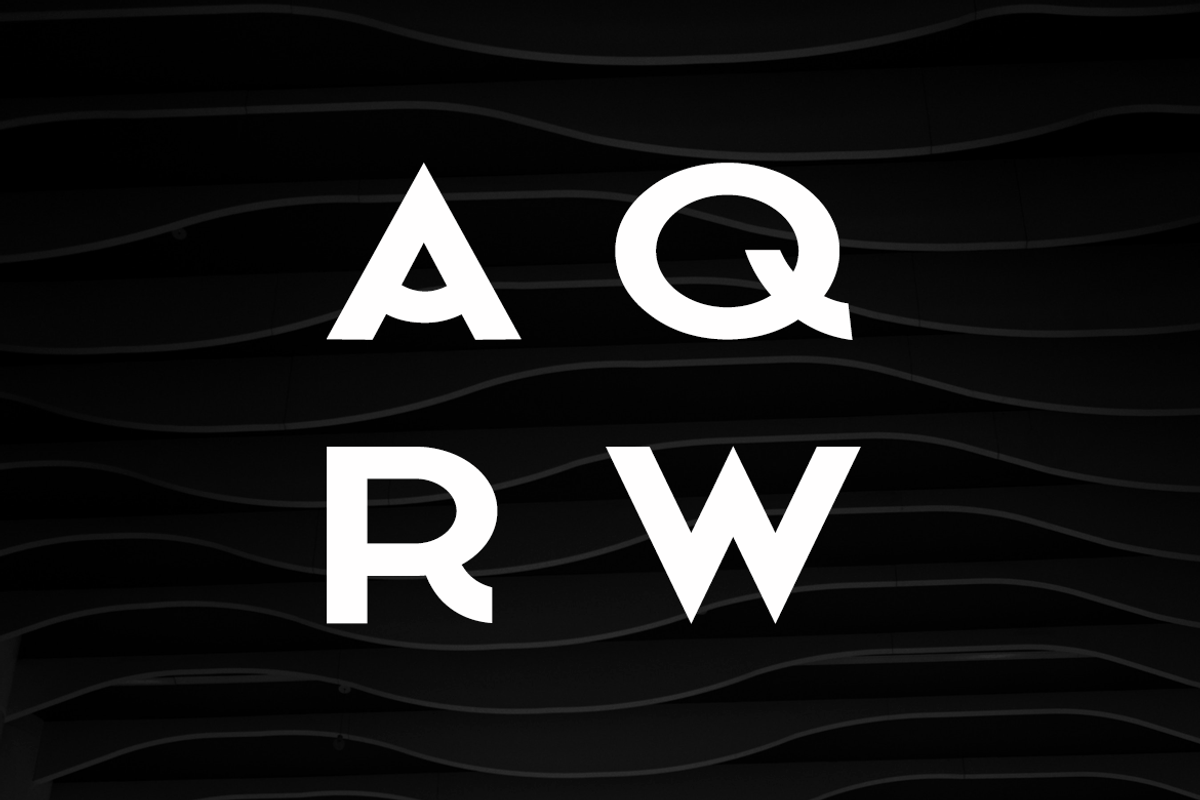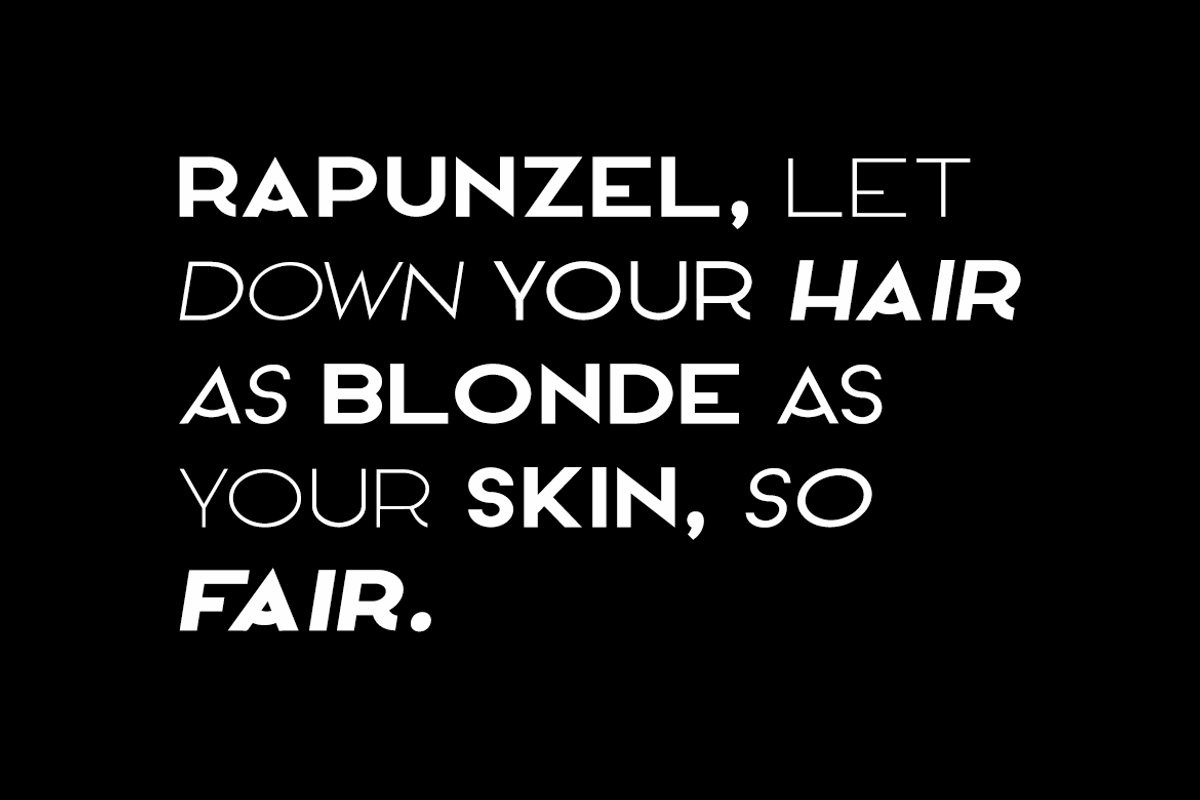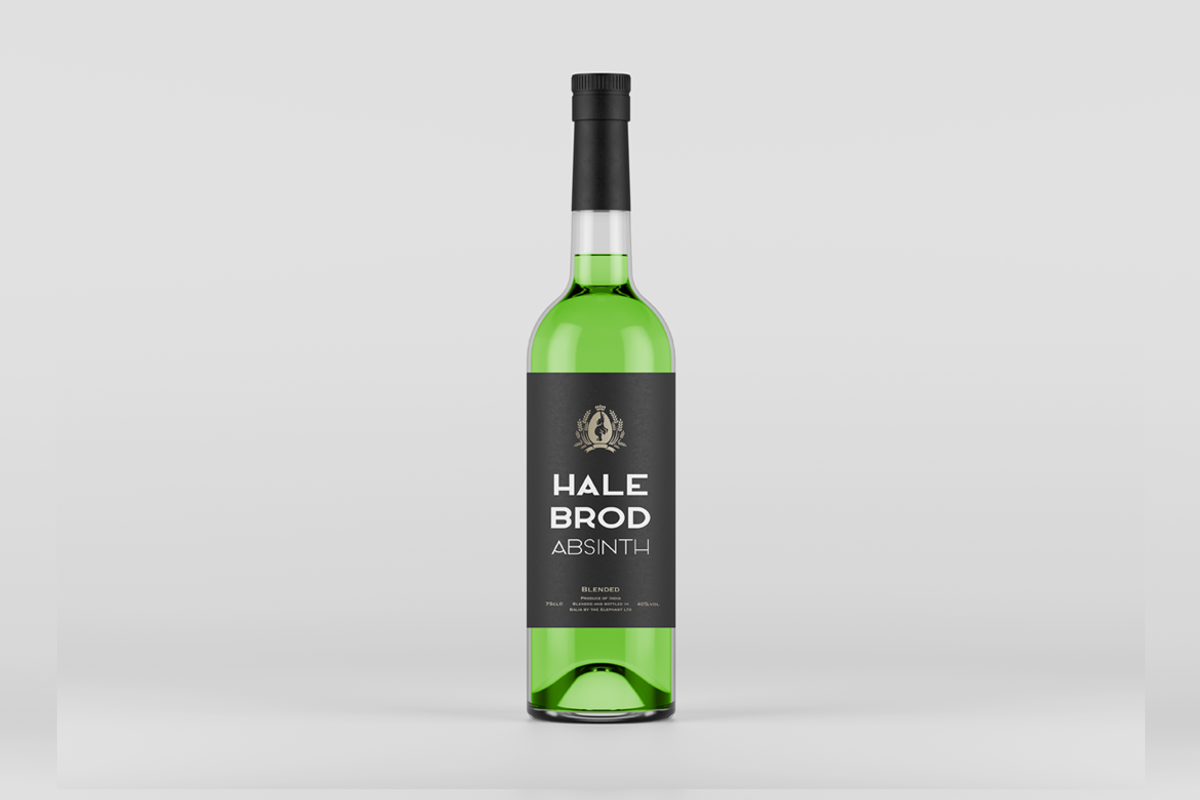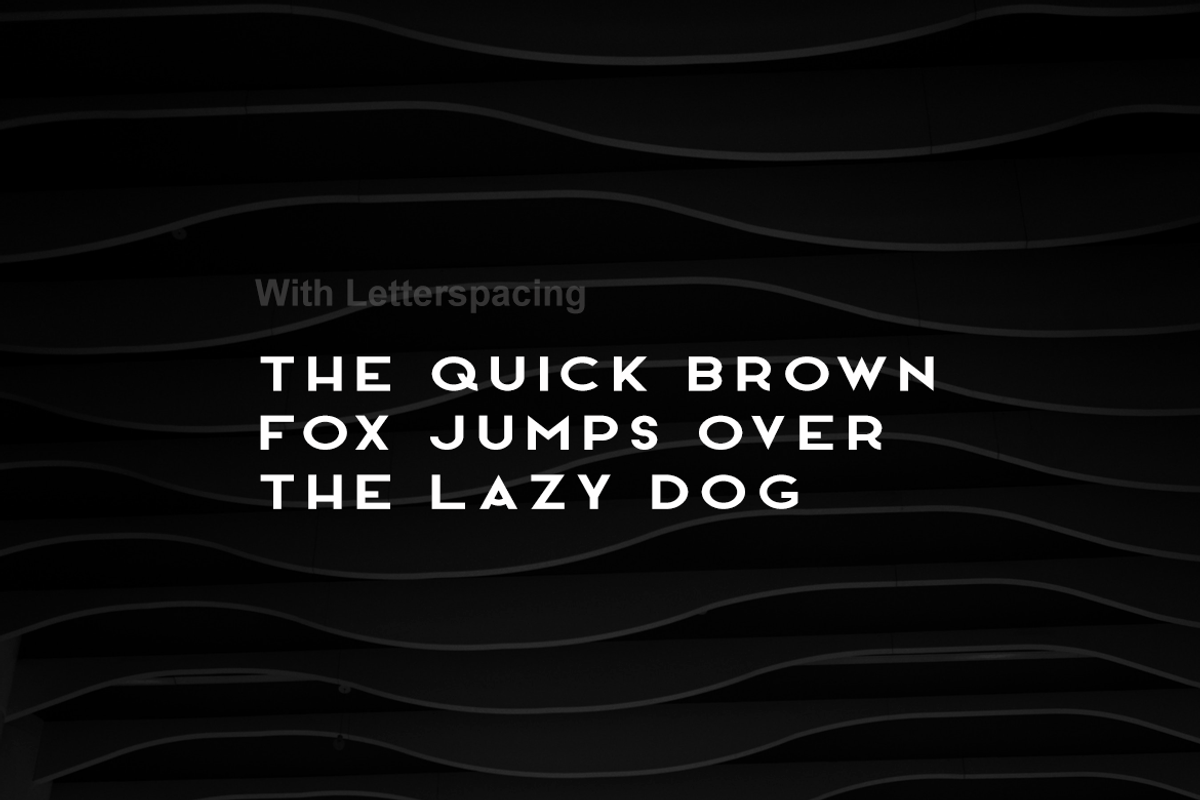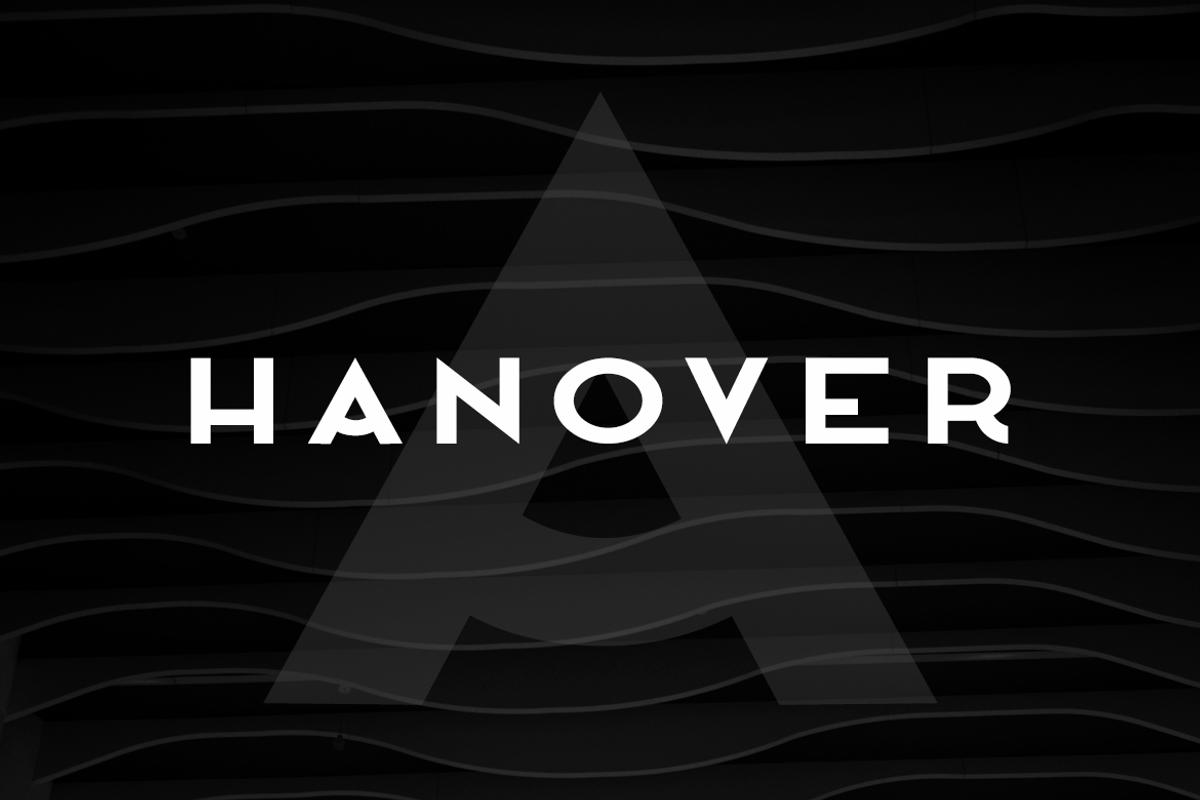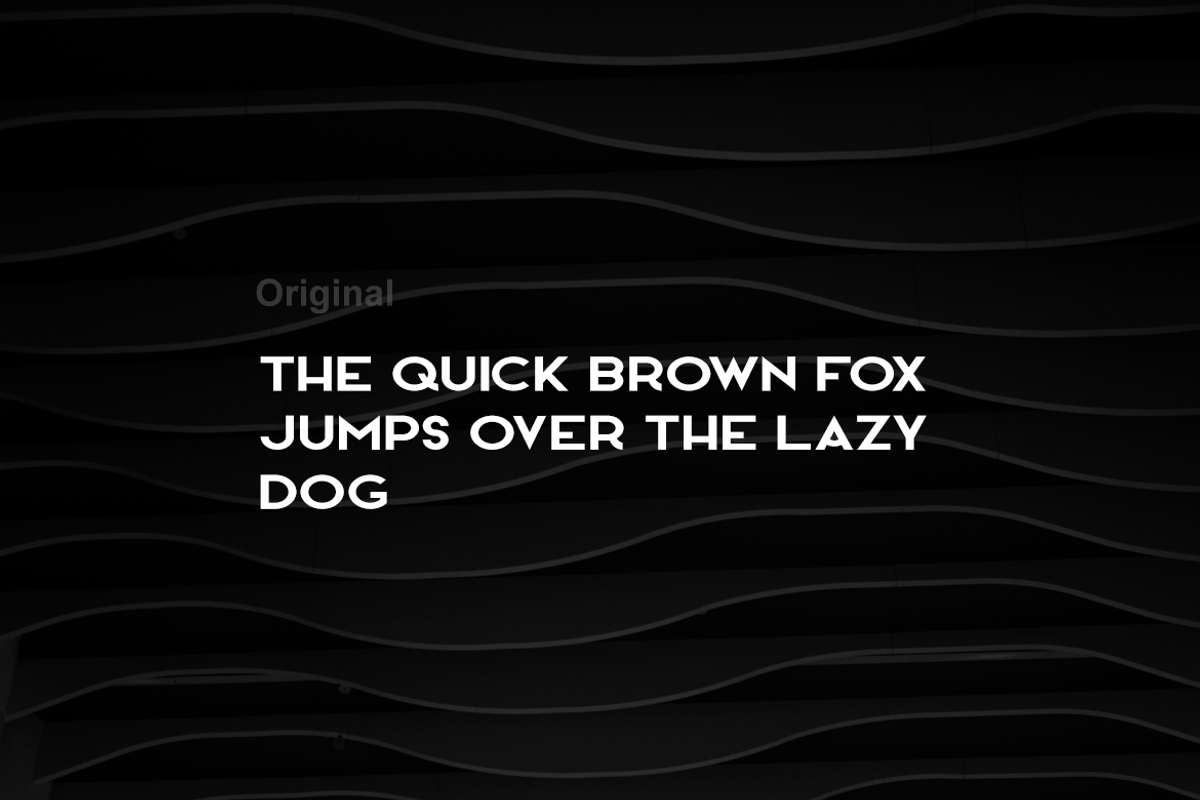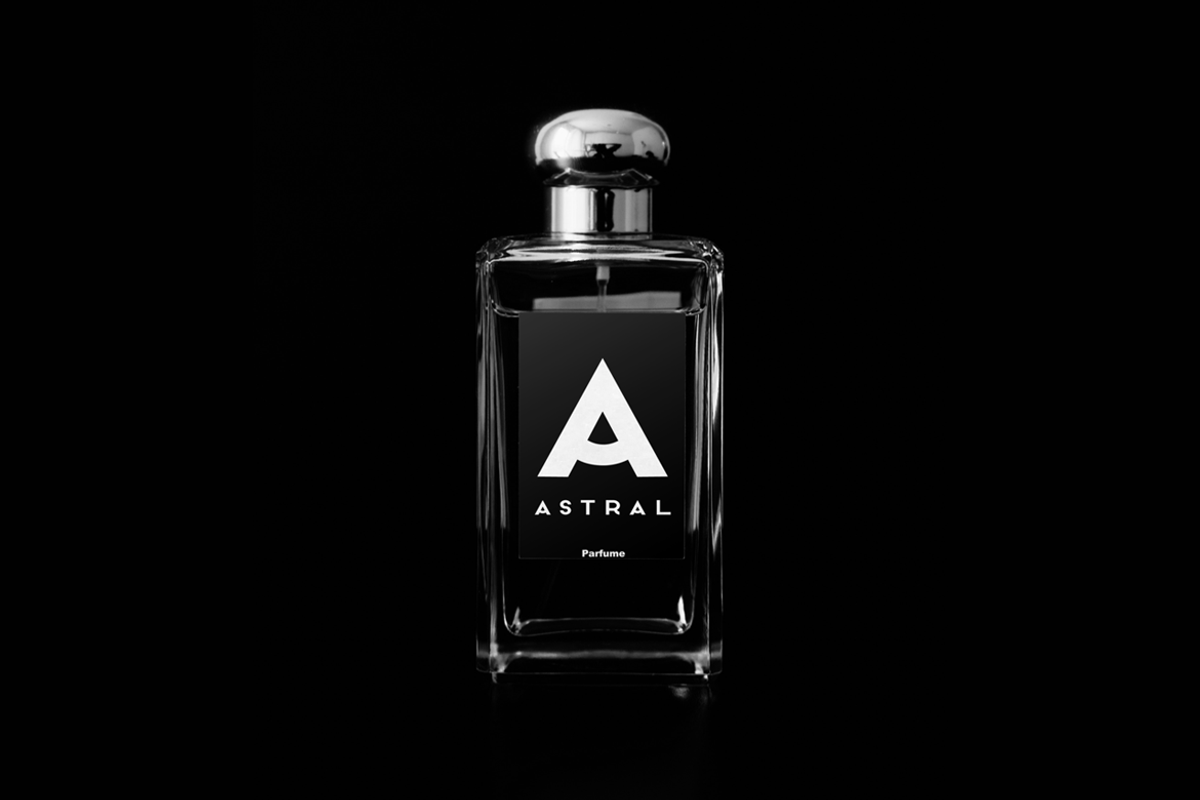
HANOVER - Minimal & Stylish Typeface
A modern & minimalist typeface specifically made for luxury, fashion and stylish statement with it's unique flare that makes it perfect for beautiful headlines, branding, logotypes & display usage. This all-caps typeface is also perfect for creating outstanding logos, promotional content and marketing graphics that can really grab attention from your visitors.
Add some letter-spacing to create unique headlines - an essential use case of modern minimalist design trend. Please see the examples shown above to get an idea about the capability of this typeface.
HANOVER comes with 4 weights (Thin, Light, Regular & Bold) along with italic versions of all 4 weights. The pack contains OTF, TTF and Web Fonts (all EOT, SVG, TTF, WOFF, WOFF2 everything is included) as licensing options.